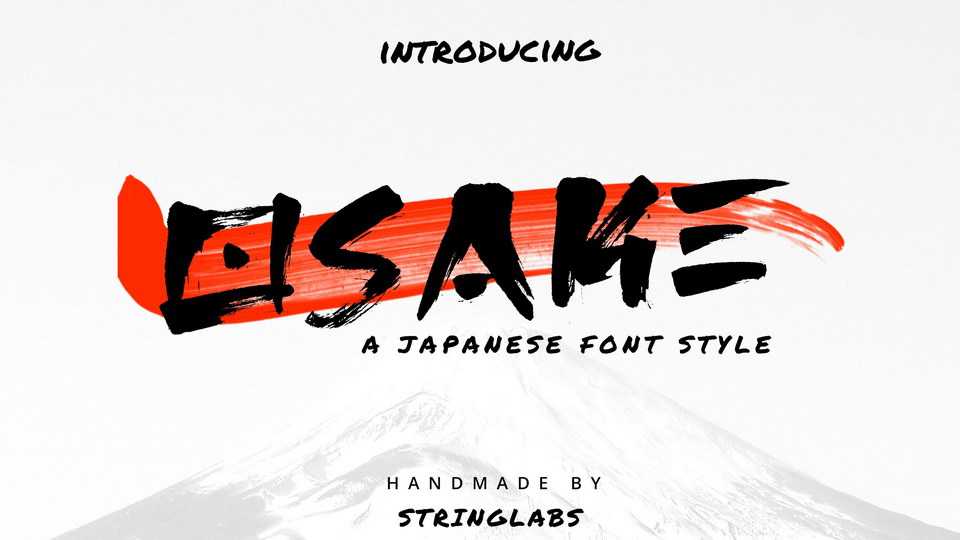
Download Osake font, a Japanese style hand painted brush typeface made with excellent taste. Osake combines ethnic and cultural elements in each of the glyphs.